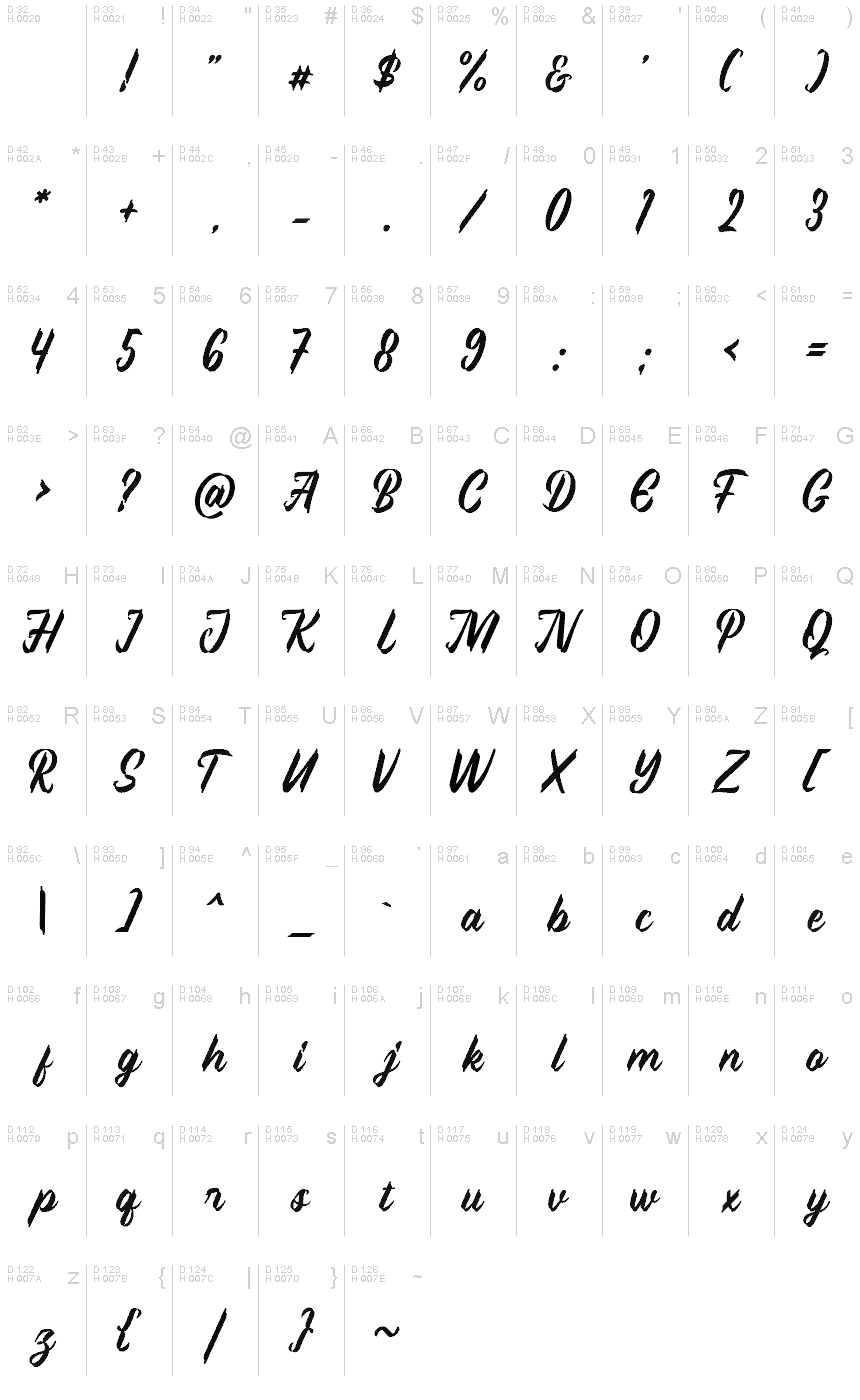
Sweet Pancake DEMO
Sweet Pancake font comes in different calligraphy styles. The usual shape has been customized to make it look more personal and special.